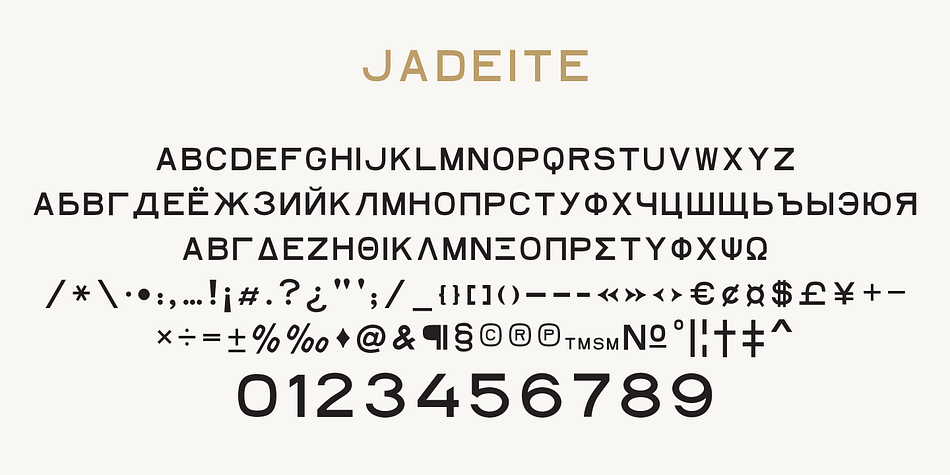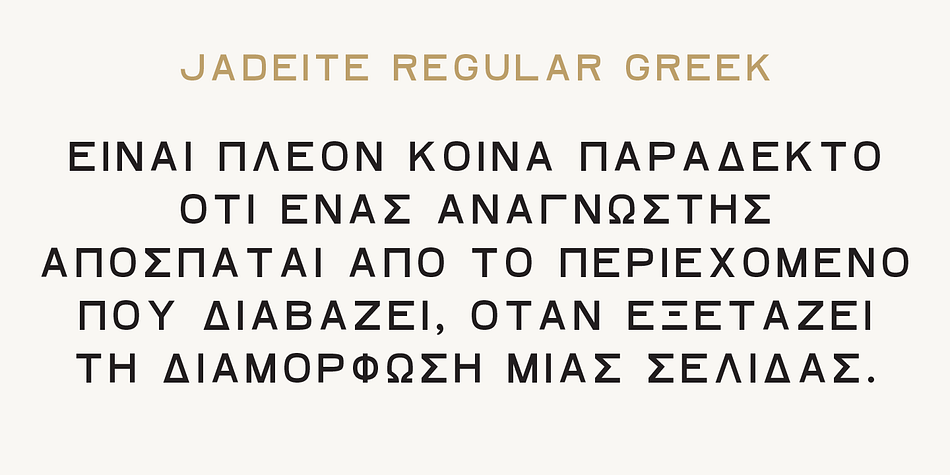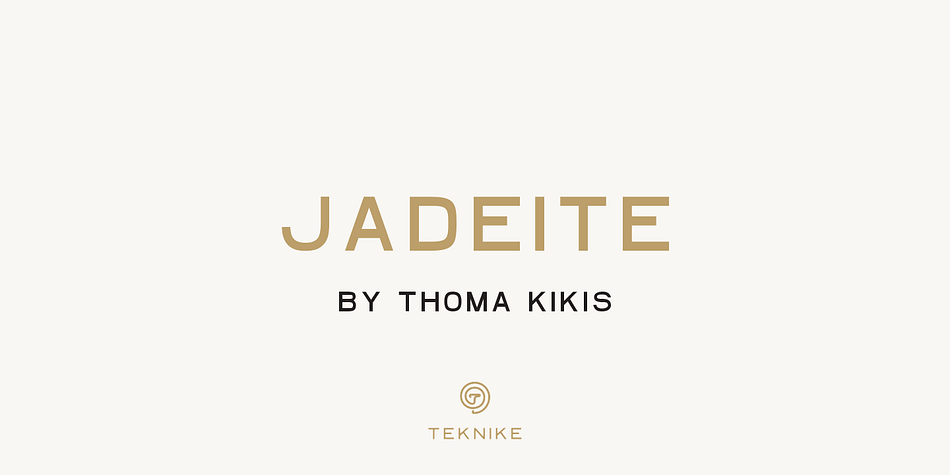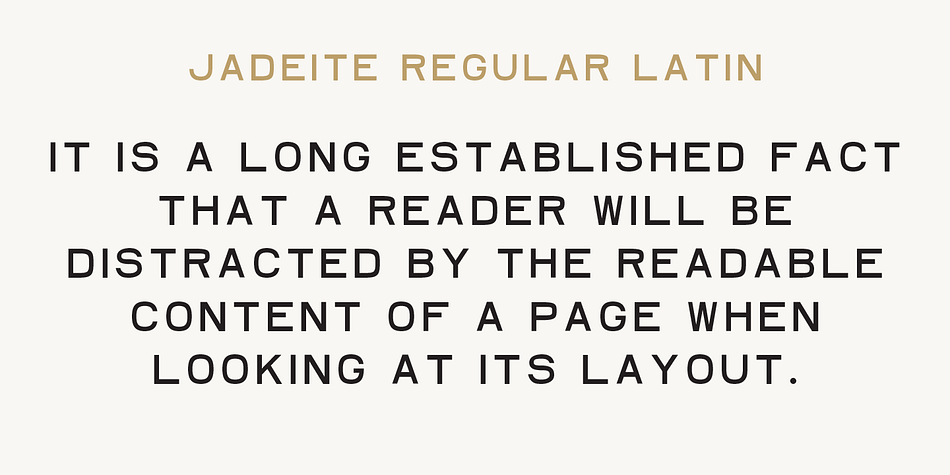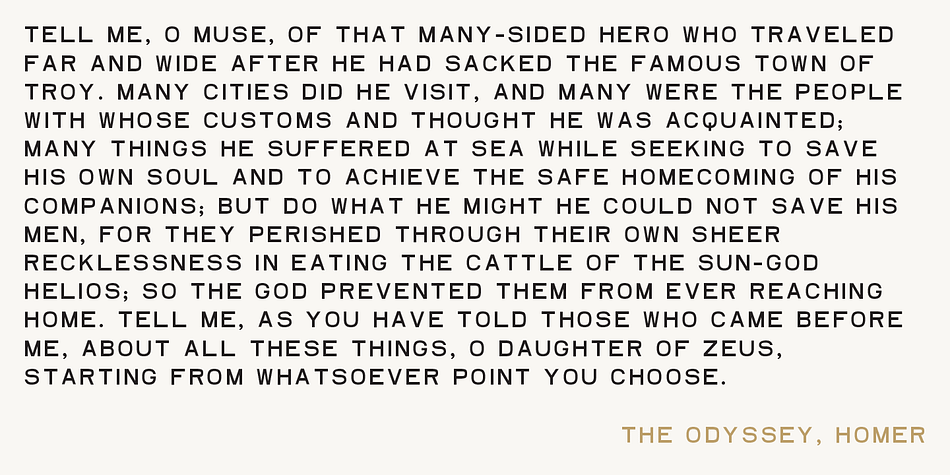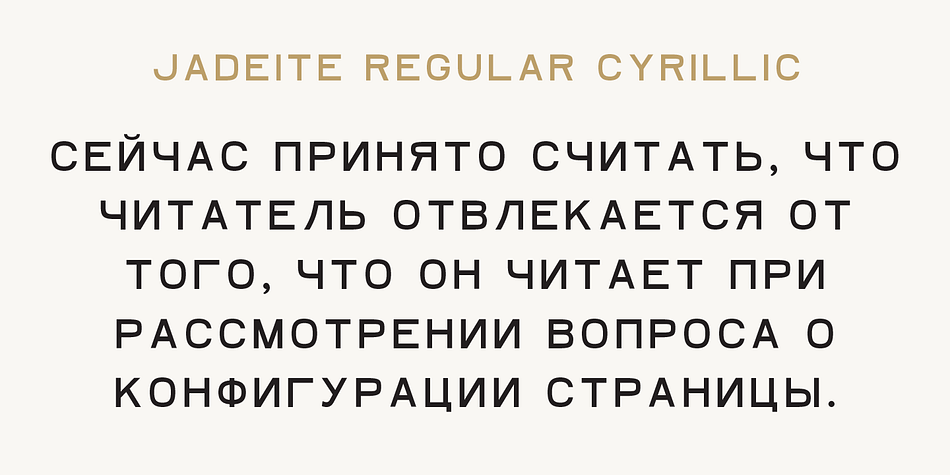
Designed by Thoma Kikis, Jadeite is a display, sans serif and display sans font family. This typeface has ten styles and was published by TEKNIKE.
Jadeite is a geometric monospaced display font. The typeface has a distinct style inspired by the Mid-Century Modern era and designed to be easy to read. The Jadeite name comes from a mineral form of jade and also represents a color of green, reminiscent and popular of the 1950’s era. Jadeite is great for display work, logos, invitations, film credits, fashion, architecture, posters and headings.
Jadeite is designed by Thoma Kikis and is currently available in 10 styles, Regular, Italic, Rounded, Rounded Italic, Rough, Rough Italic, Outline, Outline Italic, Outline Rounded and Outline Rounded Italic with Latin, Expanded Cyrillic, Hebrew and Greek character sets.